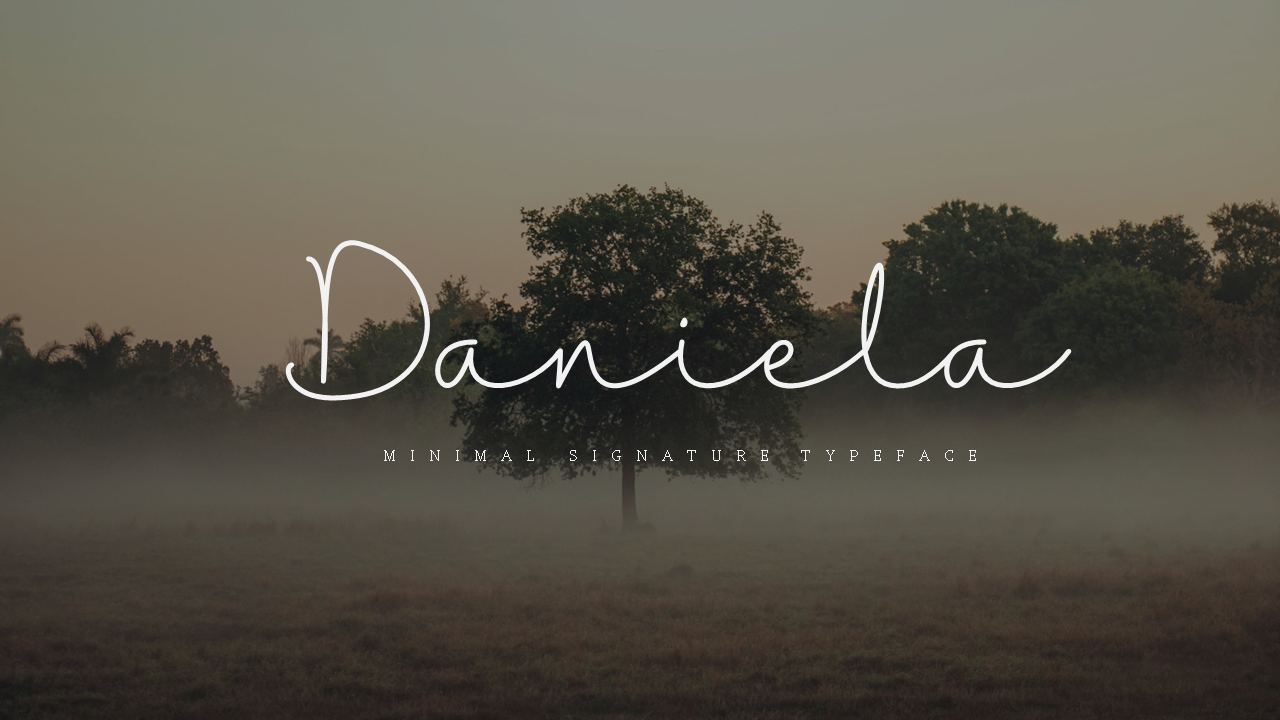
Daniela Font
Designed by nestype
About Daniela
Daniela is a delicate, well balanced and thin lettered script font. It looks beautiful on a variety of designs requiring a personalized style, such as wedding invitations, thank you cards, weddings, greeting cards, logos and so on.